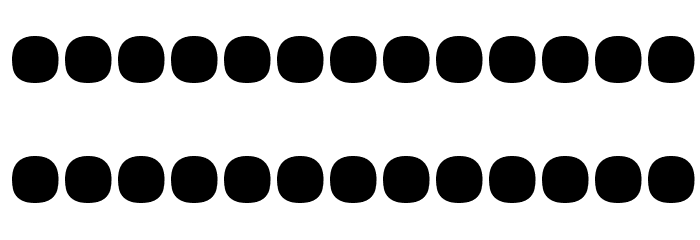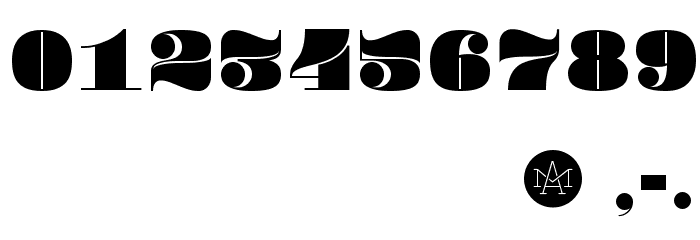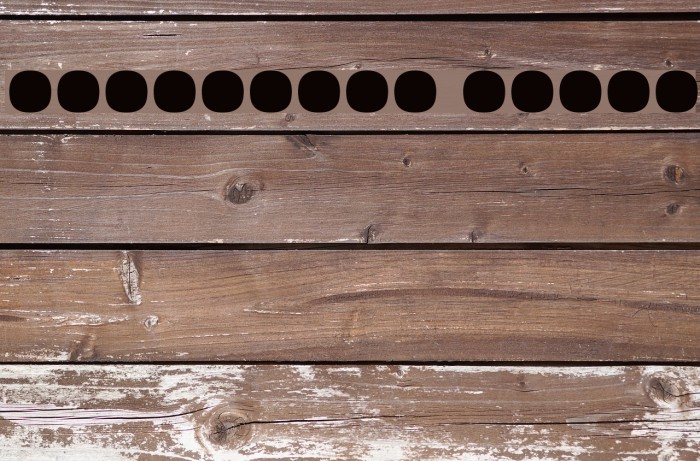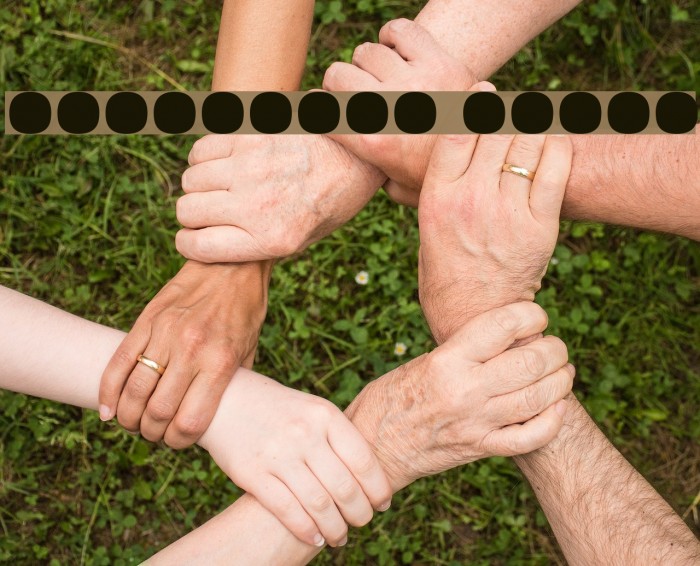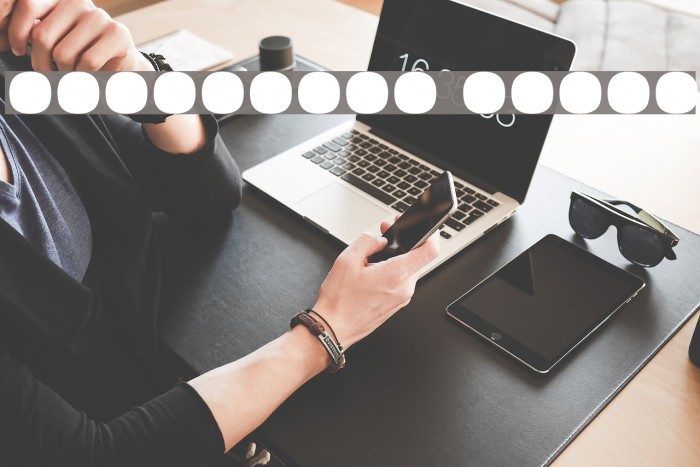
Pompadour Black Font
This font features a bold and striking design with high contrast between thick and thin strokes, creating a dramatic and eye-catching appearance. The characters are uniquely styled with elegant curves and sharp edges, giving them a sophisticated and modern look. The numbers are particularly distinctive, with ornate detailing that adds a touch of flair. The overall style is decorative and artistic, making it ideal for projects that require a strong visual impact. The font's boldness and high contrast make it stand out, ensuring that any text set in this typeface will capture attention.
A bold, high-contrast font with elegant curves and sharp edges, perfect for decorative use.
- Proposed Projects: Ideal for branding, poster design, headlines, and any project that requires a strong visual statement.
- Contrast: High
- Overall Style: Modern, Decorative